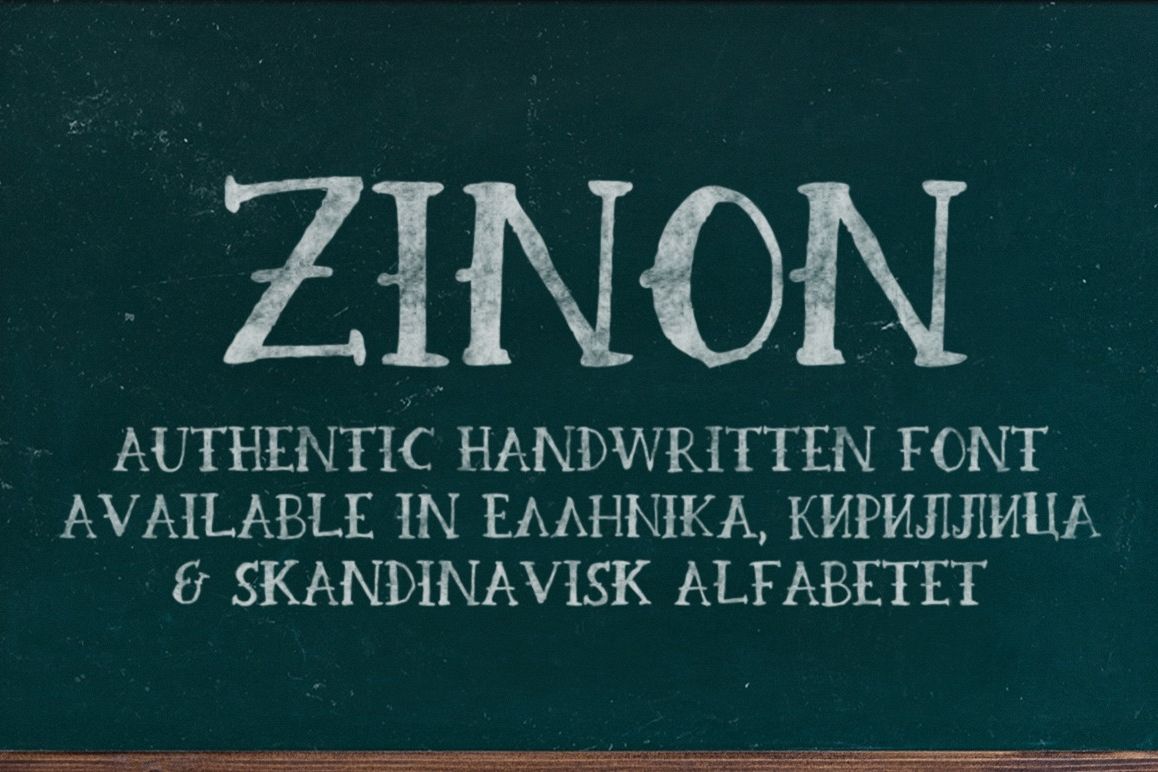
Zinon Handwritten Font
Zinon
The font family is most suitable for headlines of all sizes. Zinon font is applicable for any type of graphic design in print graphics and perfect for logos, badges, t-shirts and other items like posters. Also I recommend it for Wedding Invitations and other romantic events.
SUPPORT FOR (see preview images):
- GERMAN / SCANDINAVIAN / FRENCH CHARACTERS
- GREEK CHARACTERS
- CYRILLIC CHARACTERS
- LIGATURES
- PUNCTUATION MARKS